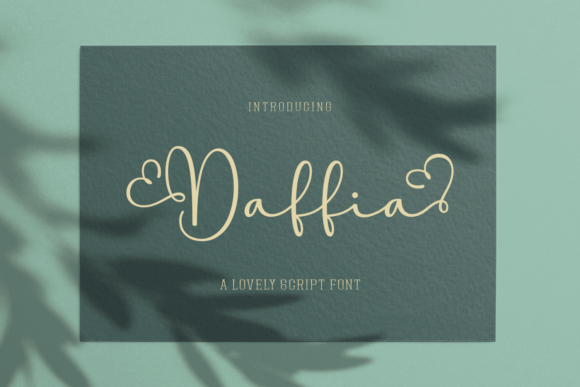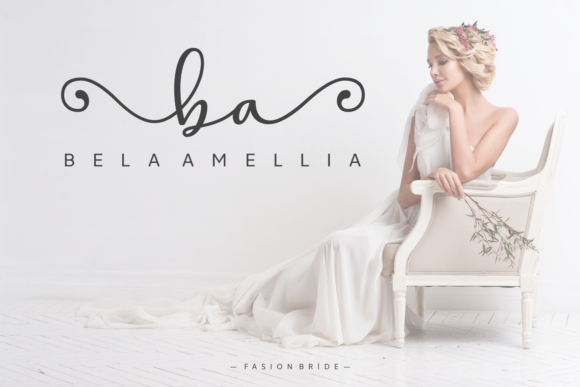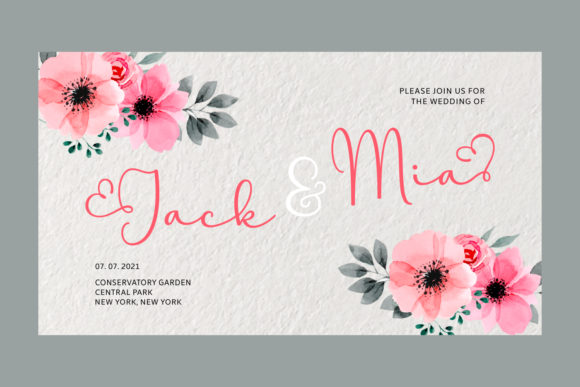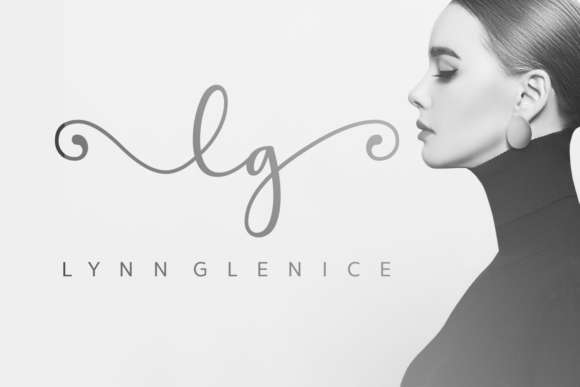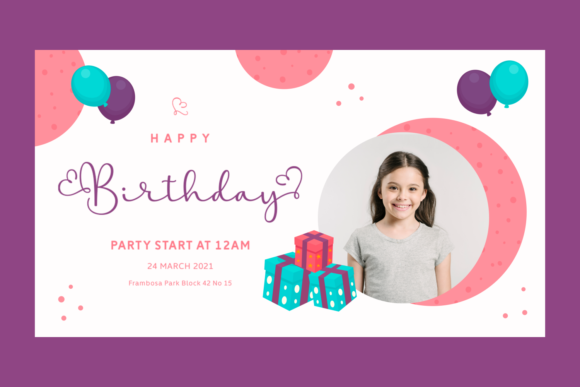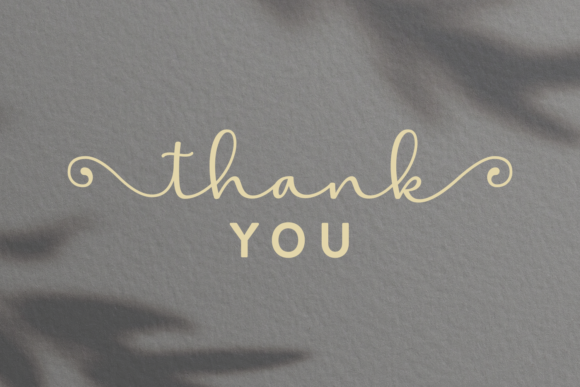
Daffia Font
About Daffia Font
Daffia is a stunning and sophisticated script font that exudes style and elegance. With its beautifully crafted letterforms and graceful curves, this font is perfect for adding a touch of refinement to a wide range of design projects.
Whether you’re creating wedding invitations, thank you cards, quotes, greeting cards, logos, or business cards, Daffia will make your designs stand out with its exquisite handwritten touch. The fluidity of each stroke and the delicate details of the characters give Daffia a unique and captivating appeal.
One of the remarkable features of Daffia is its PUA encoding, which allows easy access to all of its glyphs and swashes. This means you can effortlessly add extra flair and decorative elements to your designs, enhancing their beauty and making them truly one-of-a-kind.
The versatility of Daffia extends beyond its use in traditional stationery and branding. It can also be used in digital designs, social media graphics, packaging, and much more. The elegant and refined nature of Daffia lends itself well to a variety of contexts, adding a touch of sophistication and charm to any project.
Whether you’re aiming for a classic and timeless look or a contemporary and chic style, Daffia is the perfect choice. Its balance between elegance and legibility ensures that your message is delivered with both grace and clarity.
Let Daffia elevate your designs and bring a sense of sophistication and beauty to your projects. With its stylish and incredibly elegant aesthetic, Daffia will captivate and inspire both you and your audience.